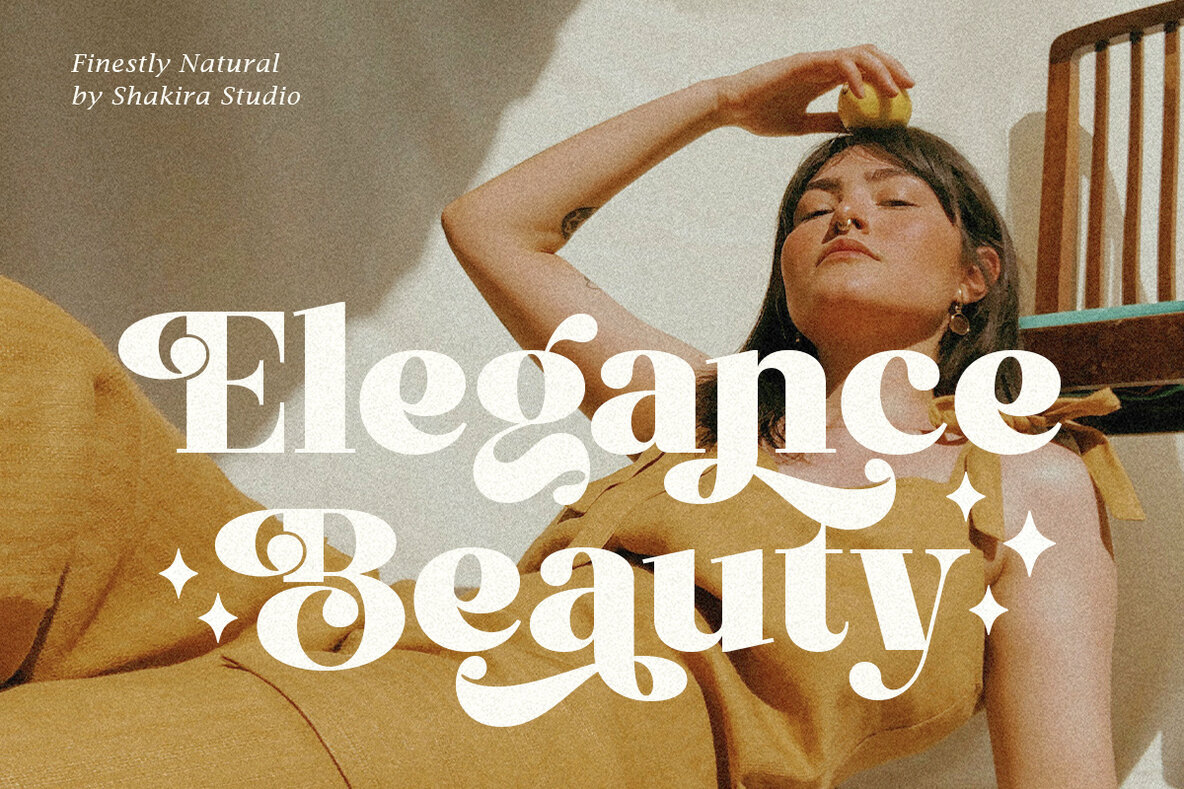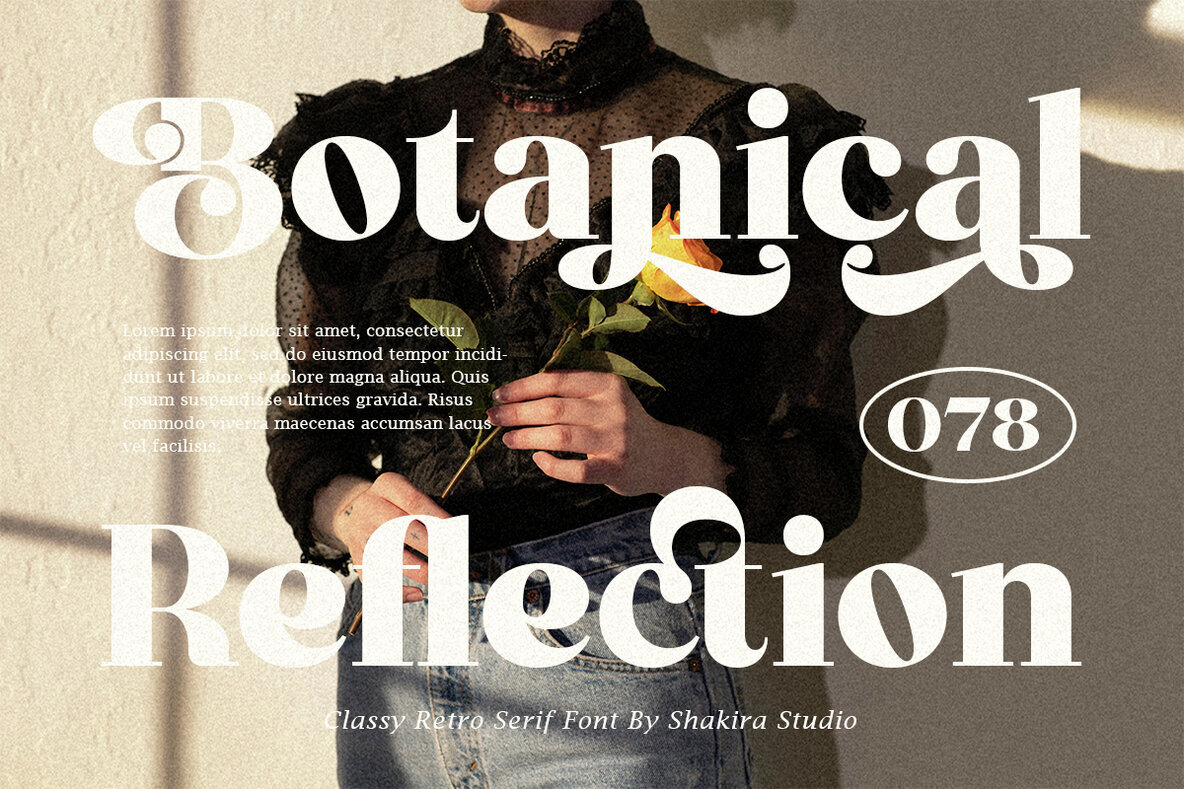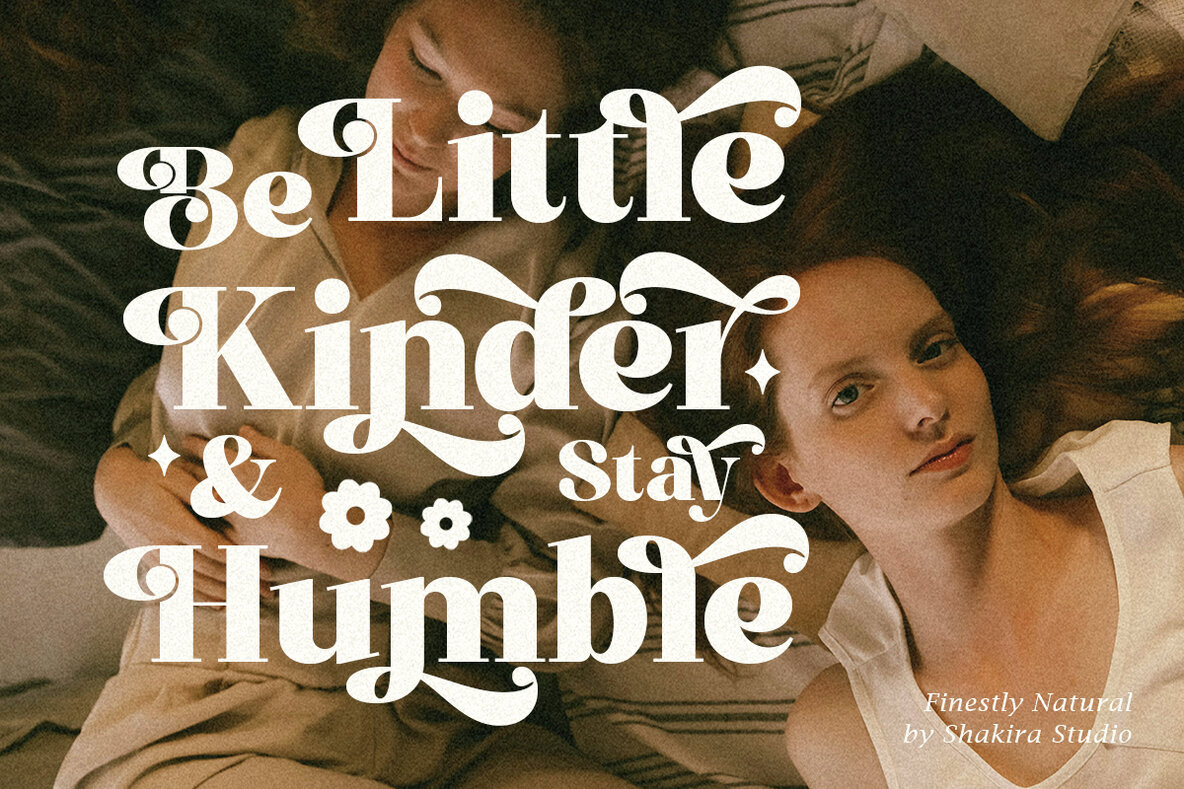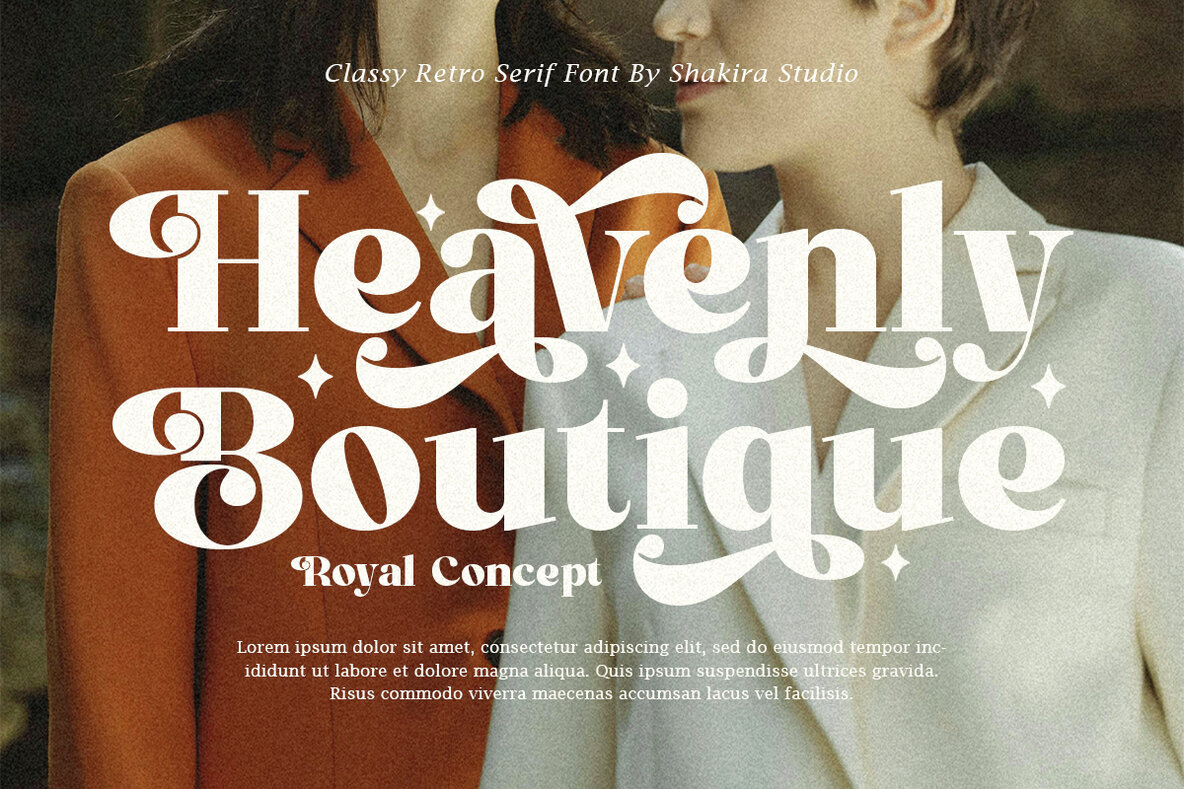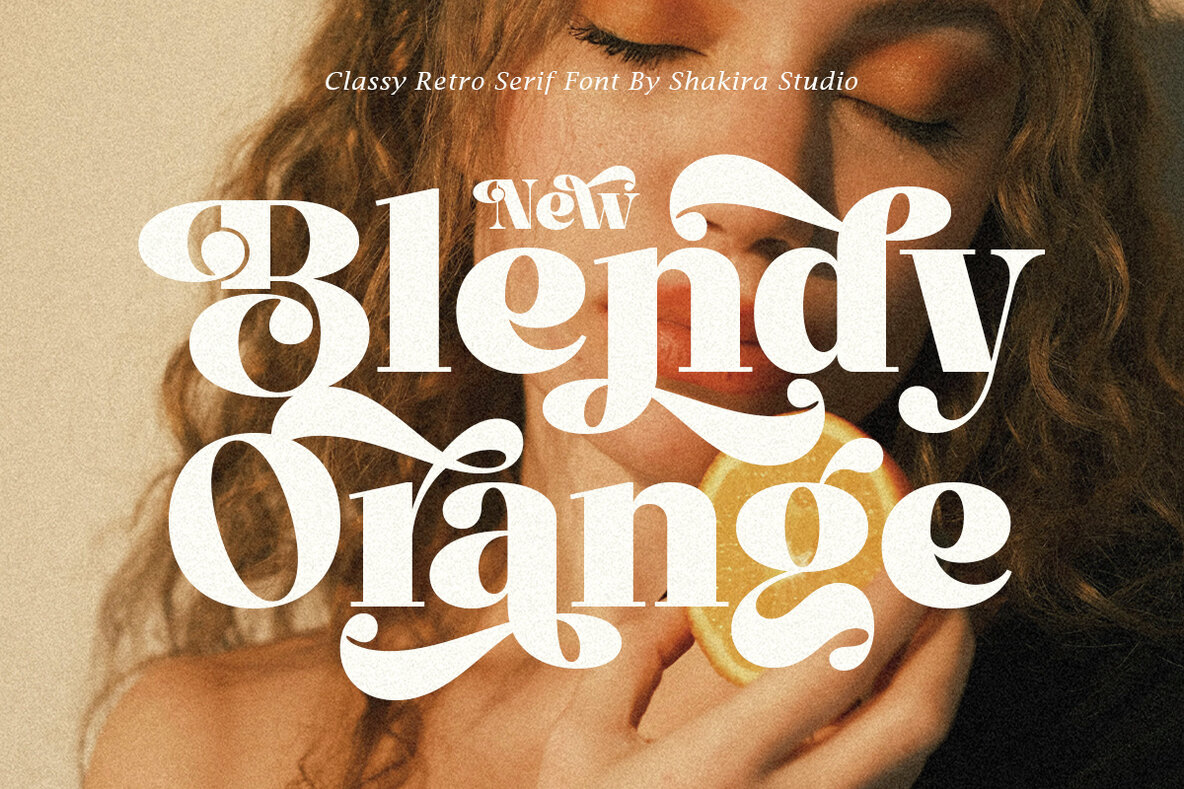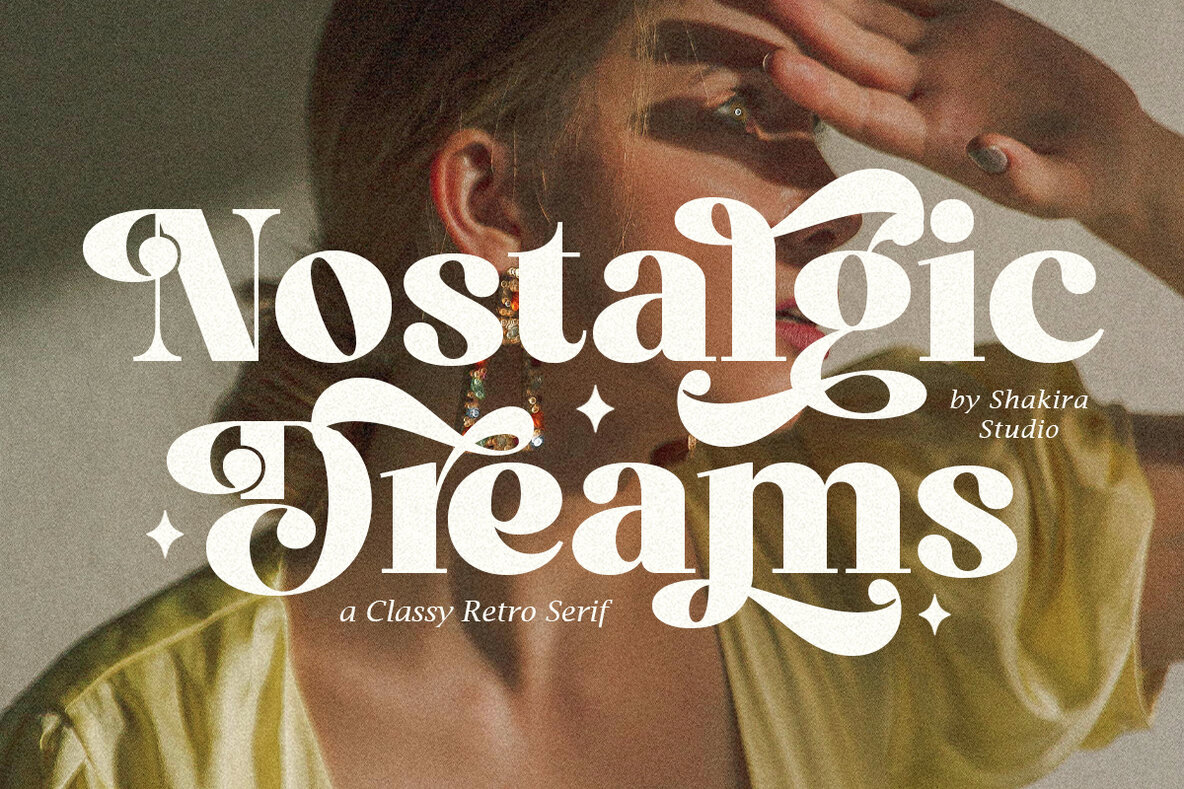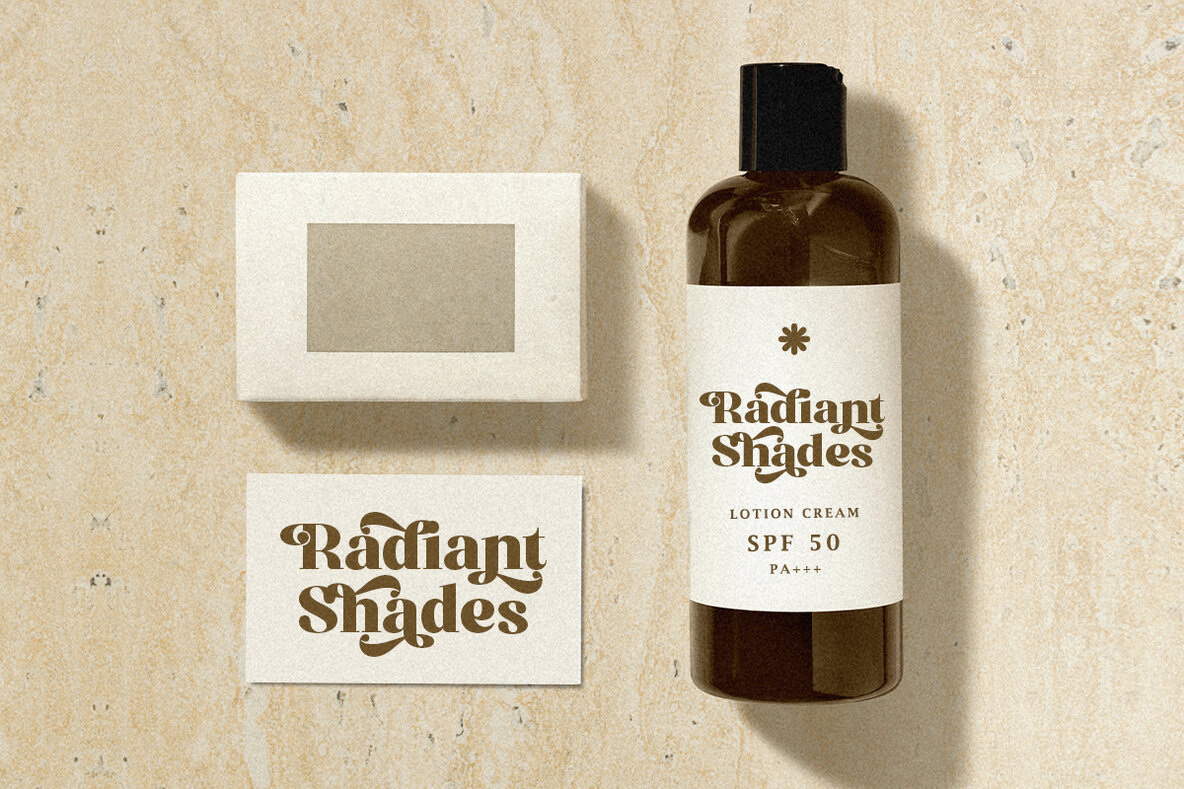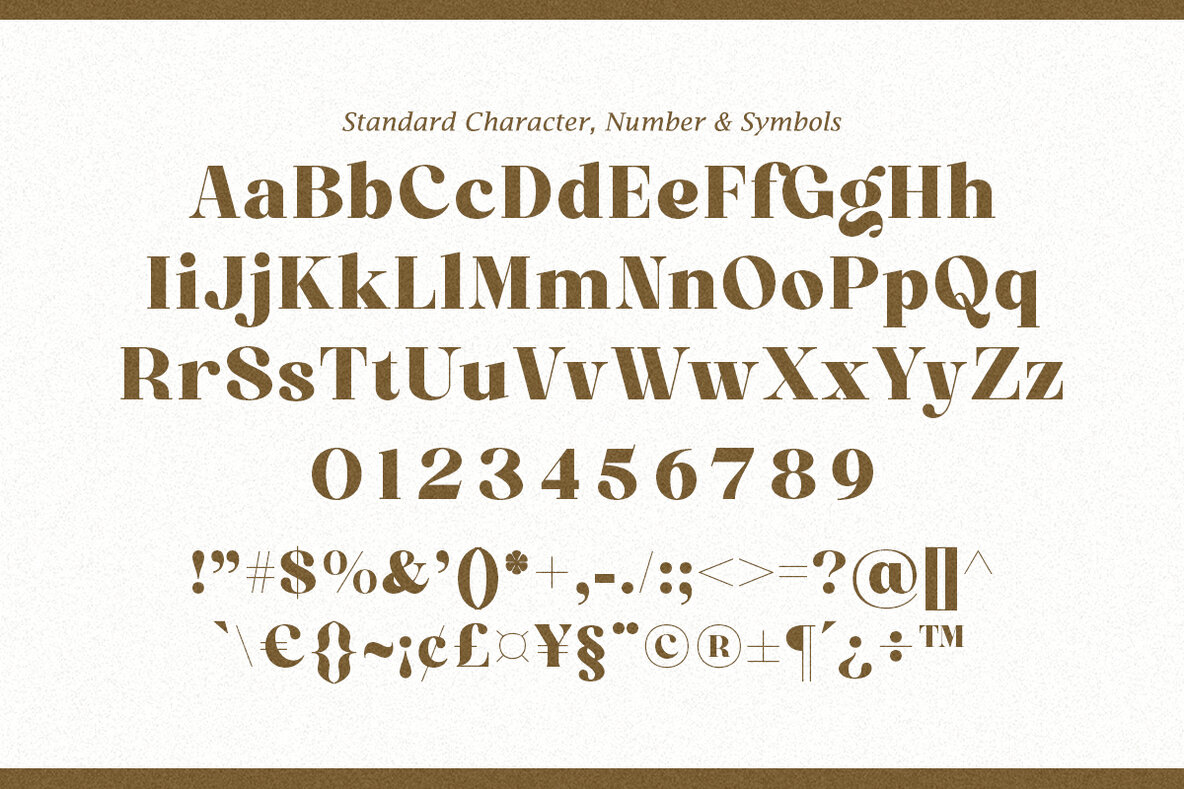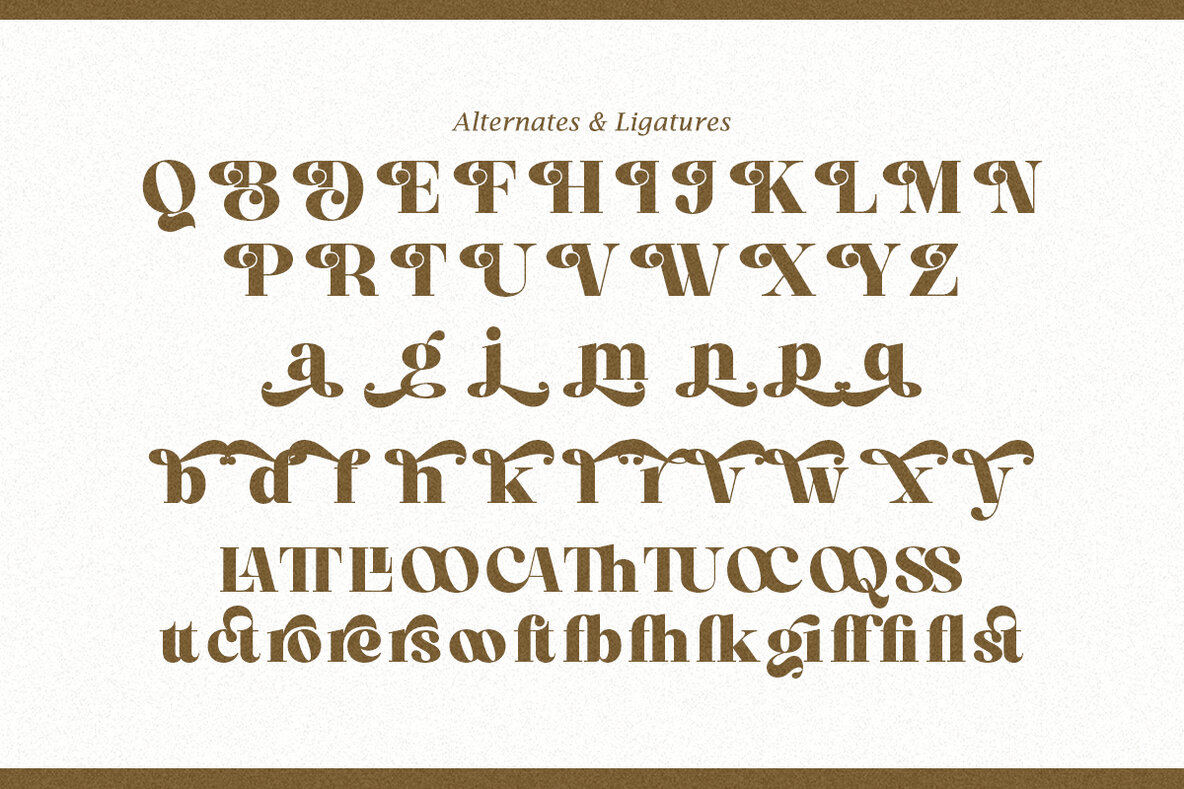
Finestly Natural Font
Finestly Natural is a sophisticated Serif font that infuses retro elegance into any design. With a selection of stylistic alternates and ligatures, this font adds a unique flair to logos, invitations, and various creative projects. Its refined aesthetic guarantees a timeless and memorable look for your designs.
This font offers Regular and Italic styles and is equipped with comprehensive multilingual support, making it versatile for international usage. Opentype features, including ligatures and alternates, enhance its functionality across a range of applications like Adobe Illustrator, Photoshop, InDesign, and even Microsoft Word. Finestly Natural's PUA Encoded Characters ensure full accessibility without the need for additional design software.